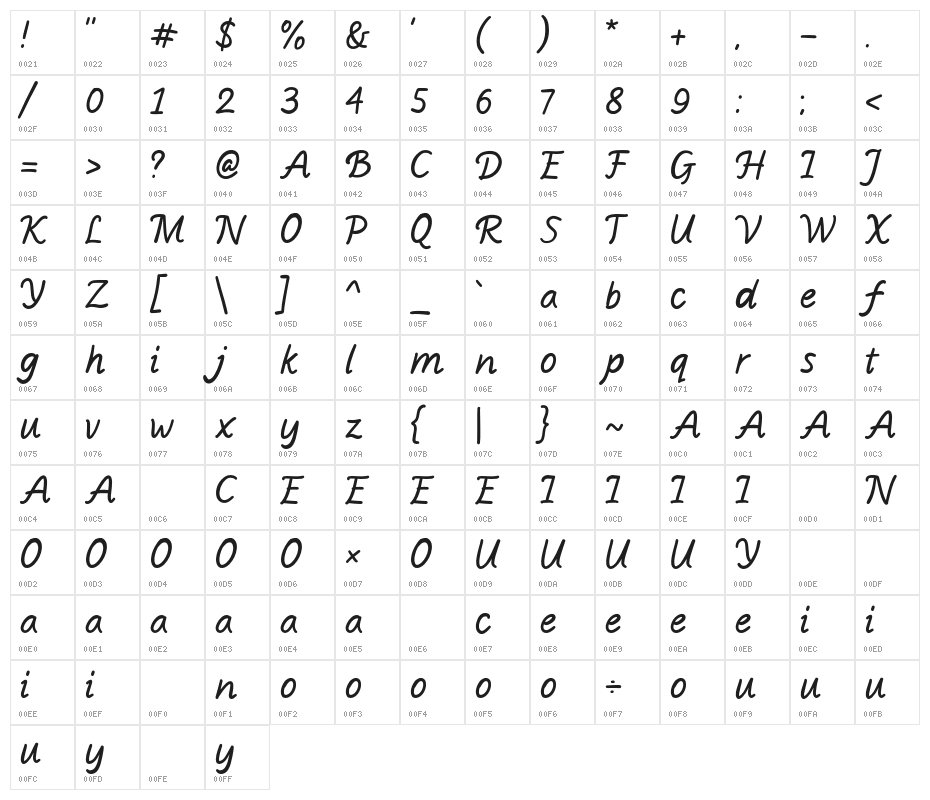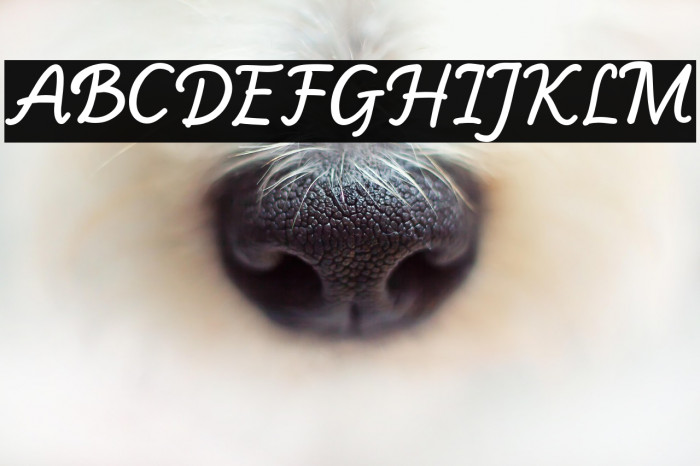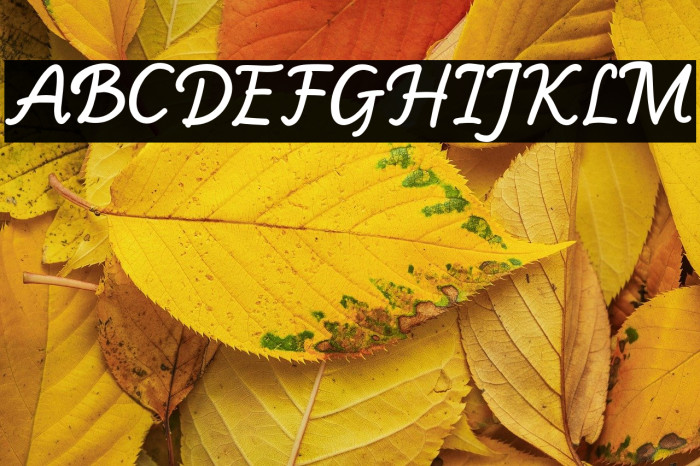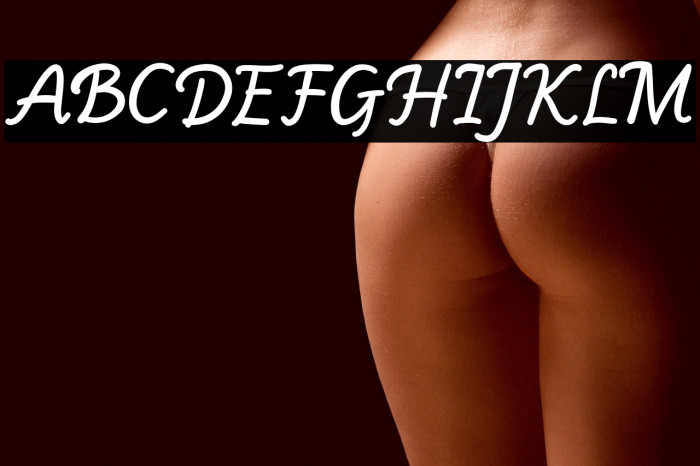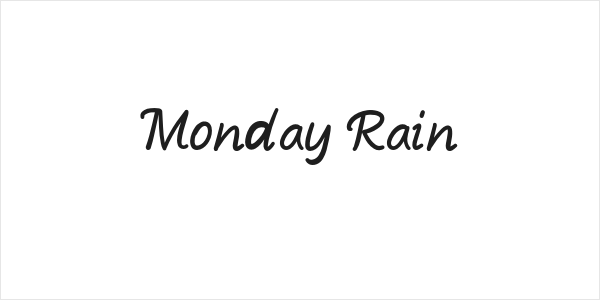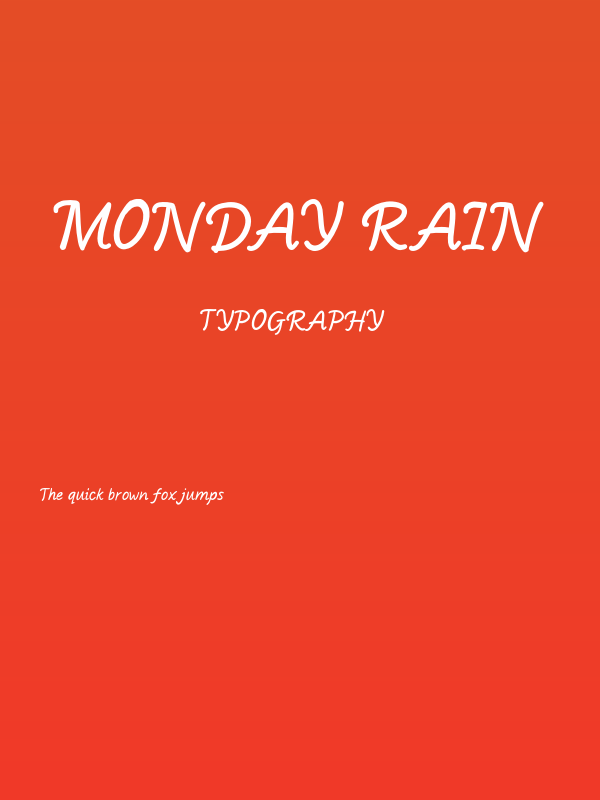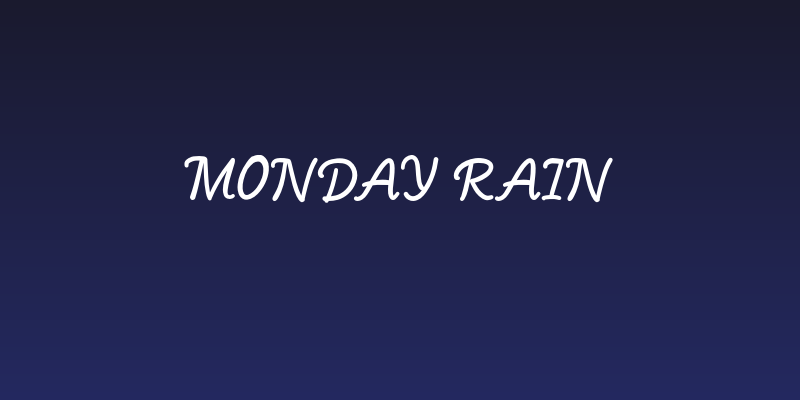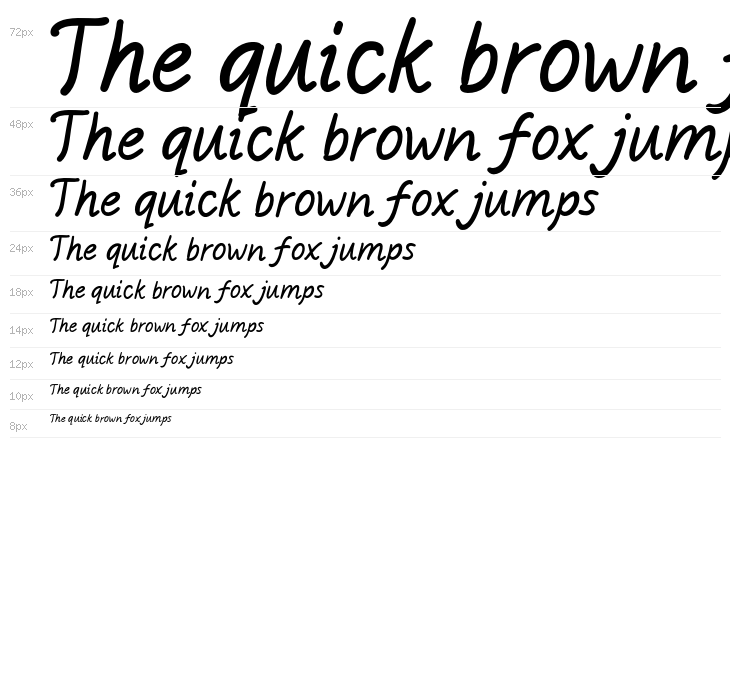
Monday Rain Font
Monday Rain Description
This font features a flowing, cursive style that mimics natural handwriting, giving it a personal and approachable feel. The letters are slightly slanted, with smooth curves and a consistent stroke width that adds to its legibility. Uppercase letters maintain a classic script form, while lowercase letters are more playful and dynamic, enhancing the font's versatility. The numerals and special characters are crafted to match the overall aesthetic, ensuring cohesion across all text elements. This font is ideal for projects that require a touch of elegance and informality, such as invitations, greeting cards, or personal branding.
| Use Case | Headlines, Invitations, Personal Branding |
| Proposed Projects | Ideal for invitations, greeting cards, personal branding, and informal communications. |